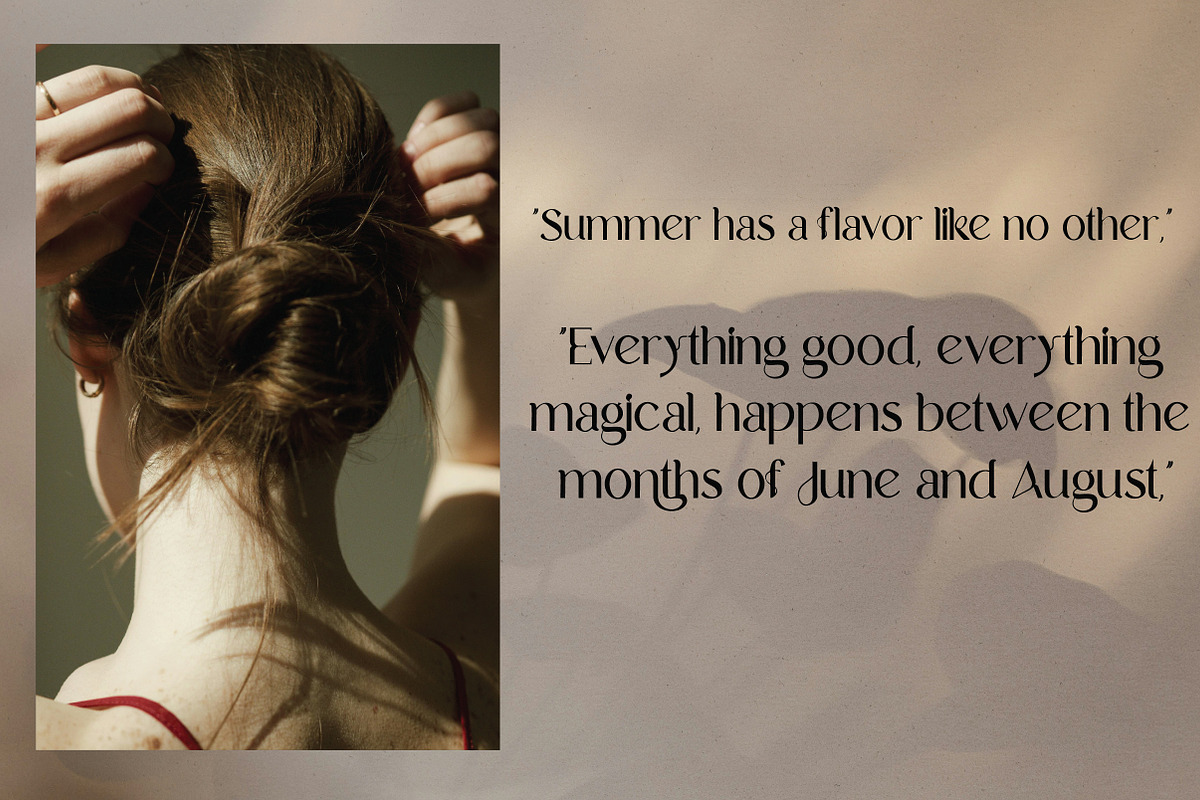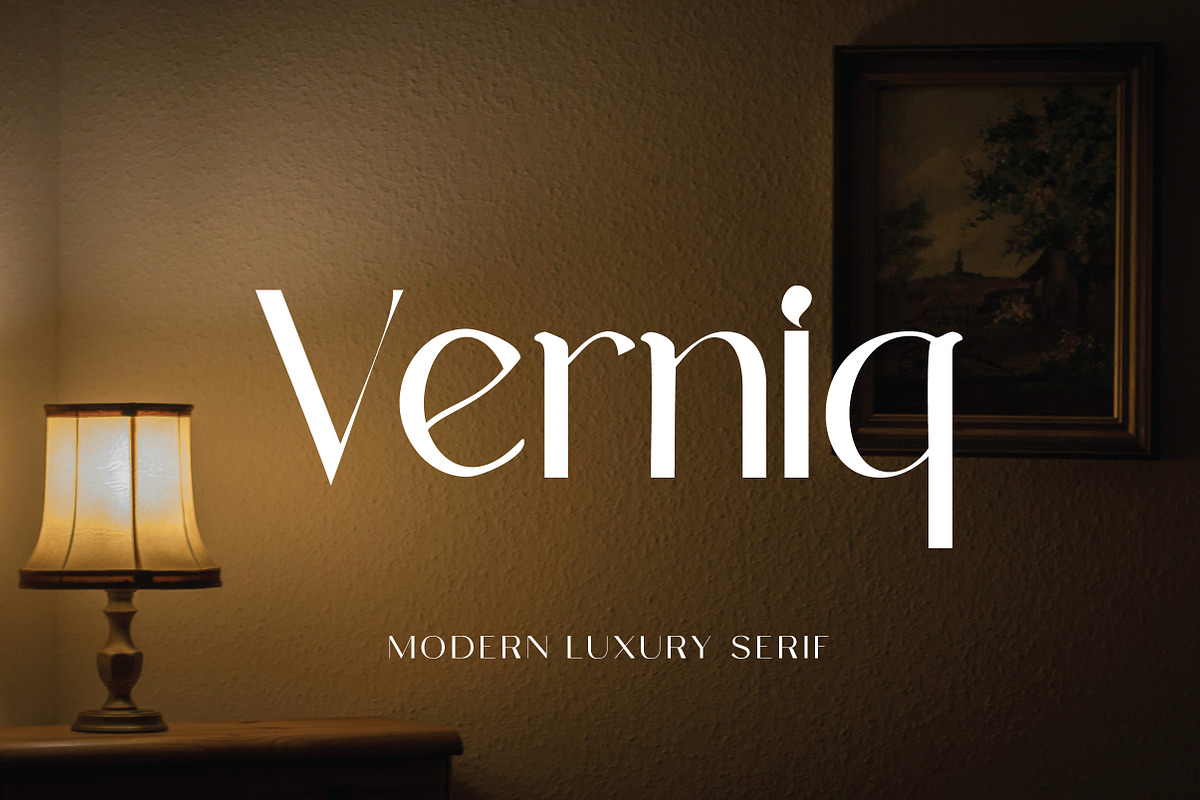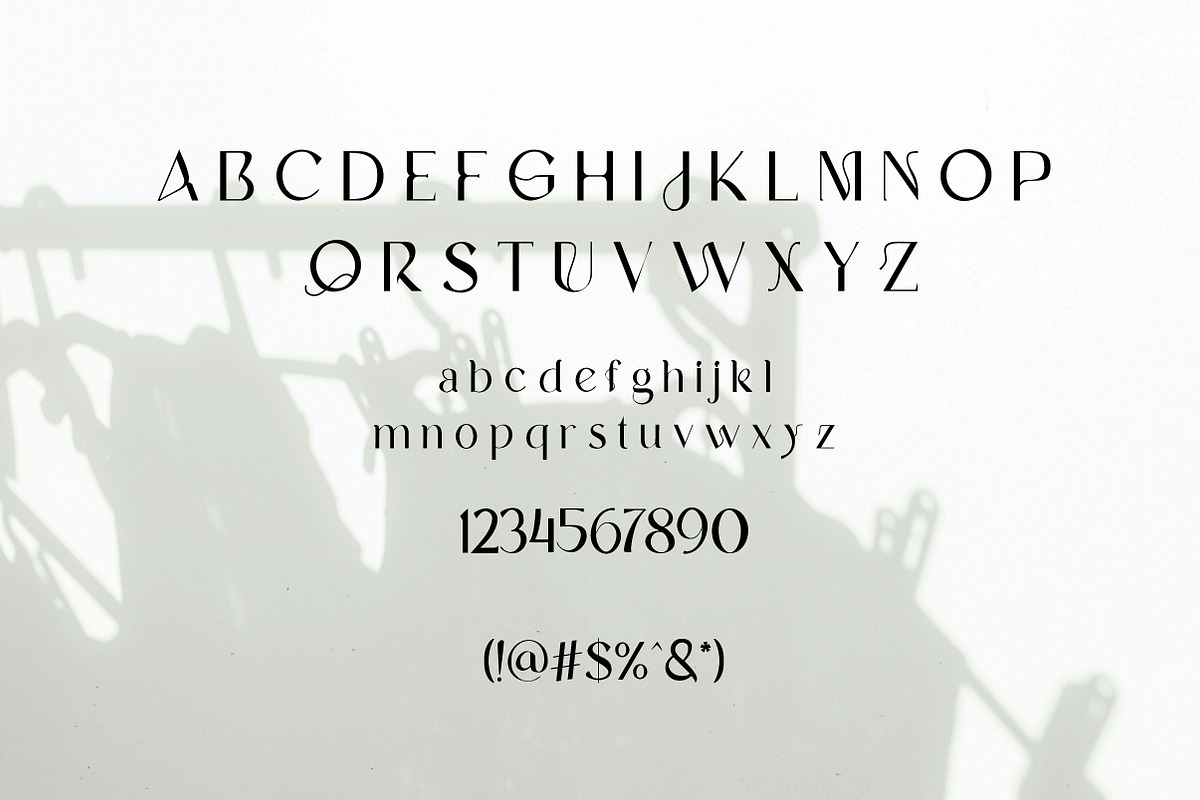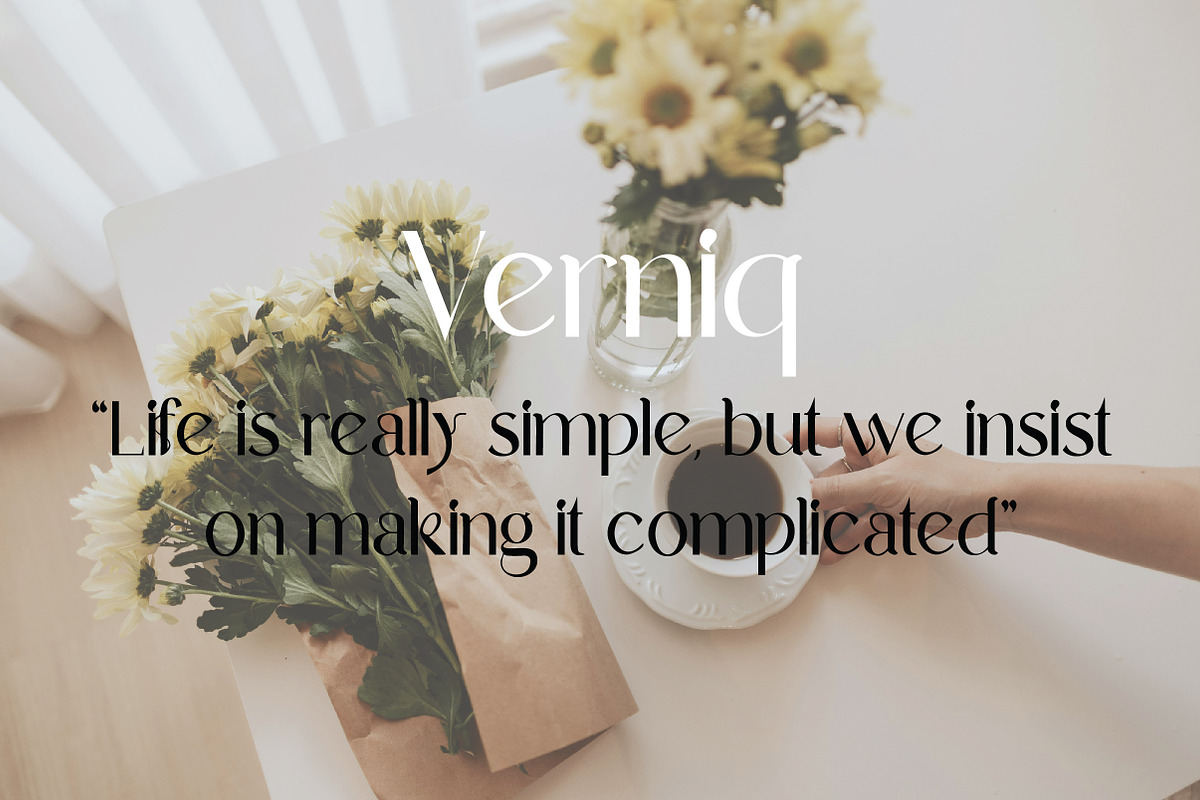
Verniq | Elegant Modern Sans Serif
Verniq is a refined serif typeface with a modern, timeless feel. Its Regular style features balanced proportions, smooth curves, and sharp details—making it perfect for branding, editorial layouts, packaging, fashion headlines, and luxury design projects.
With its graceful appearance and high readability, Verniq adds a touch of sophistication to both digital and print work. It's a versatile font that works beautifully in logos, magazine titles, wedding designs, and minimalist compositions.
Verniq is an excellent choice for designers seeking a clean, elegant serif with a modern personality.